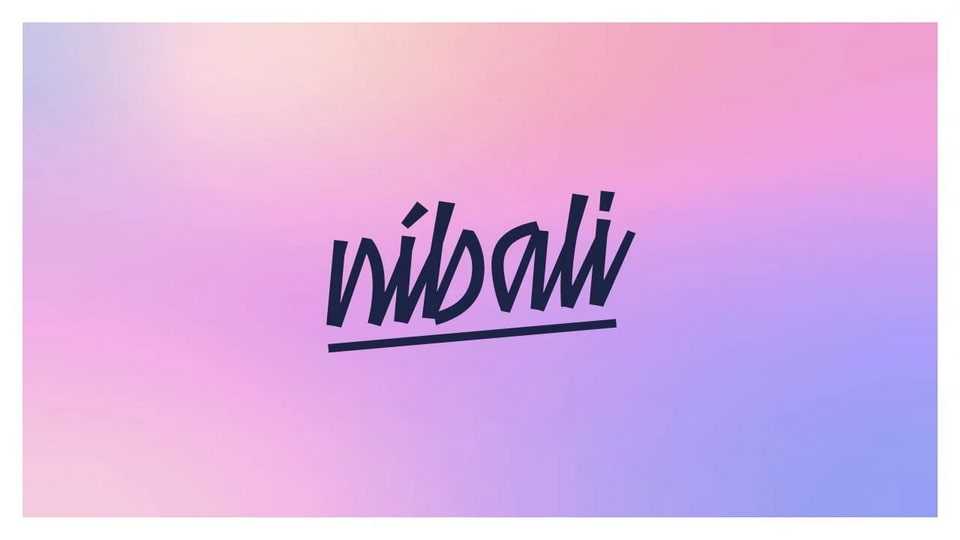
Download Nibali font, a script typeface with agile strokes, fluid strokes that exude elegance and sophistication. Its flowing, hand-drawn aesthetic captures the essence of natural handwriting.